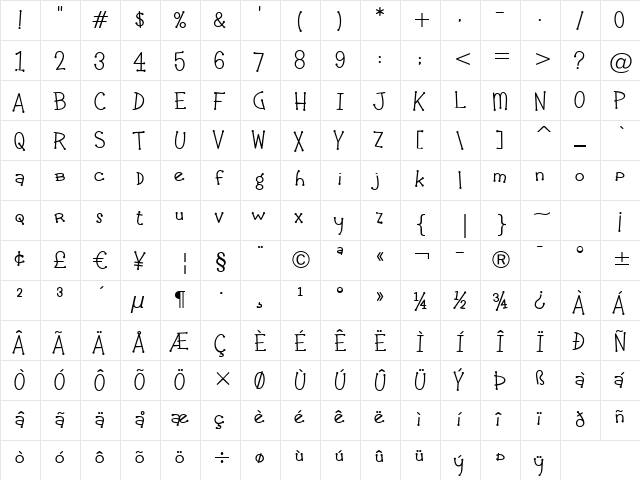
Crazy Girlz Blond BTN Regular
Design Context for Crazy Girlz Blond BTN Typeface
Crazy Girlz Blond BTN is a composed and adaptable typeface that performs quietly and consistently across a wide range of design contexts.